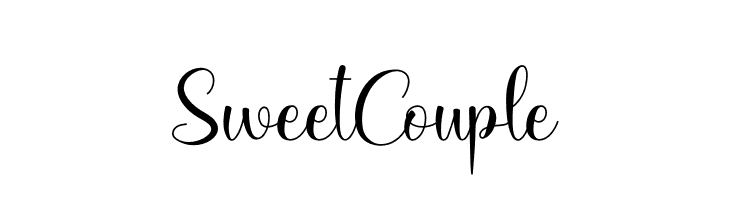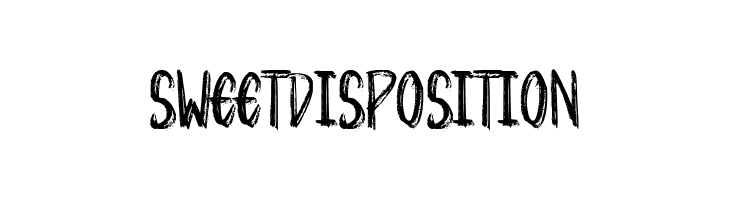
A playful, handwritten font with rounded edges and a casual style.
A bold, handwritten font with a playful and friendly style.
A bold, playful handwritten font with smooth, rounded edges.
A fluid and elegant script font with smooth, flowing lines.
A playful, bold font with whimsical, rounded strokes and a lively design.
A playful, handwritten font with smooth, flowing lines and a casual style.
A playful, bold, and hand-drawn style with dynamic strokes.
A flowing, cursive font with elegant loops and smooth transitions.
A highly distorted and blurred font with overlapping characters, creating an abstract visual effect.
A playful, handwritten font with bold, rounded letters and a lively style.